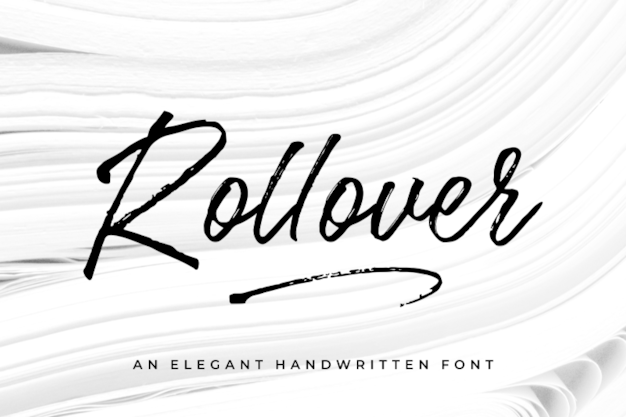
Rollover
Rollover Font
Redy Studio
Rollover is a handwritten font that channels the elegance of an ancient script fit for royalty. With its flowing curves and regal style, each letter captures the essence of a queen's timeless grace. Ideal for invitations, historical themes, or luxury branding, Rollover adds a touch of sophistication and artistry, evoking a sense of nostalgia and grandeur in any design.